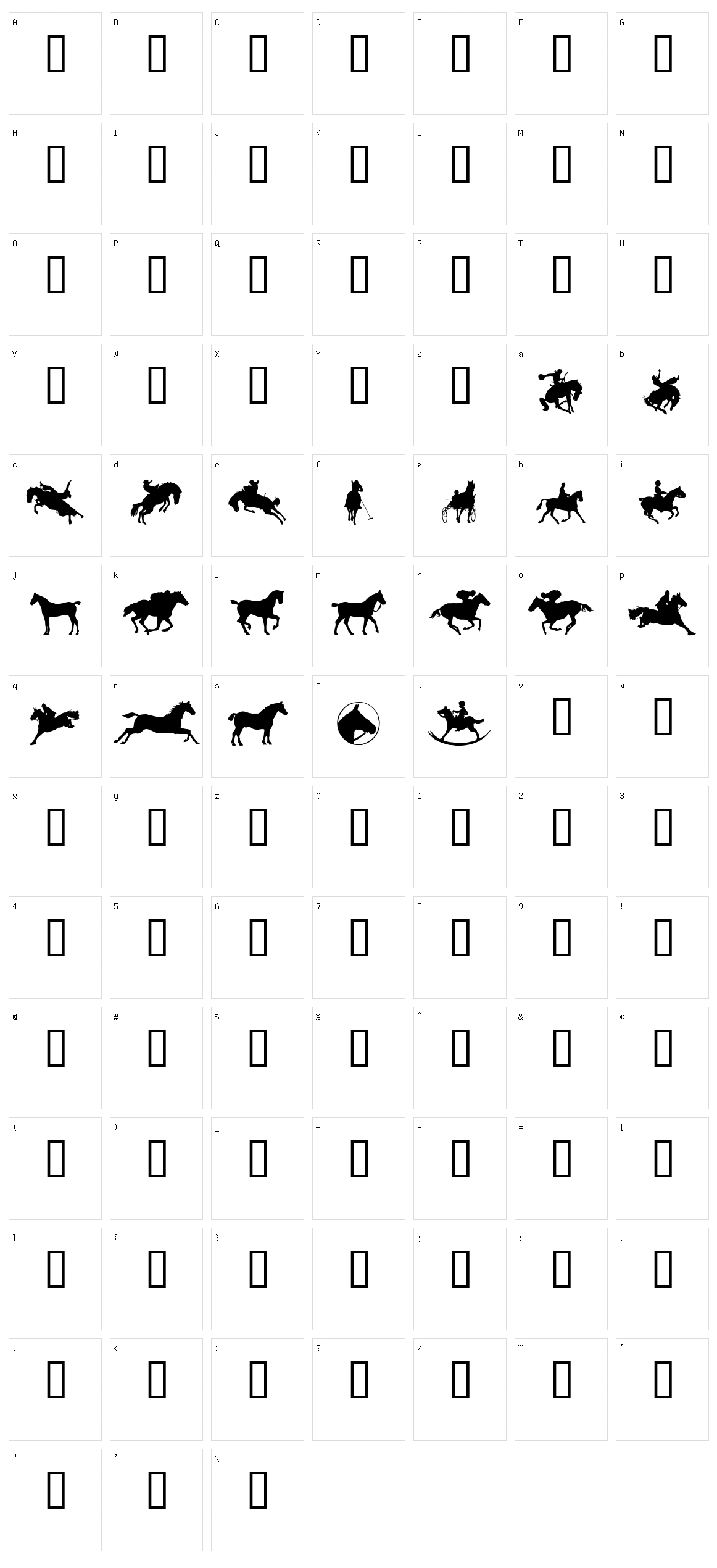
YeeHaw v1.10 was completed on 10/26/98
It is my second attempt to make a dingbat font.
YeeHaw contain 21 horse symbols. They are all lower case
from a to u.